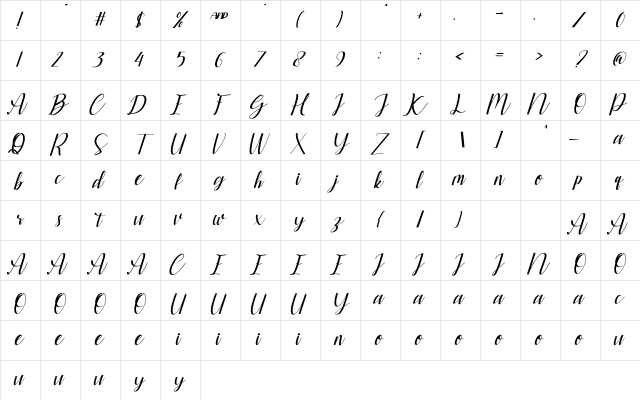
Gabriella Regular Free Font
Gabriella Regular
Designer: fiqiart
Design Context for Gabriella
Gabriella is a composed and adaptable typeface that performs quietly and consistently across a wide range of design contexts.